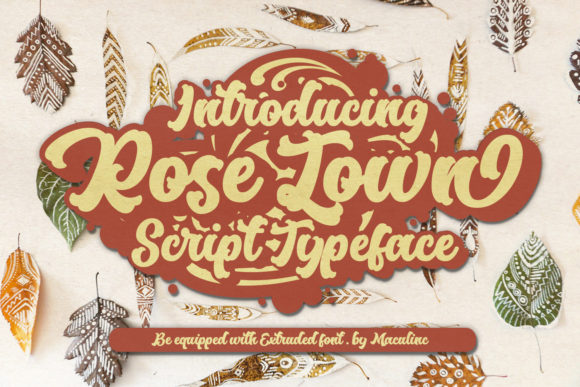
**Introducing Rose Town Font: The Epitome of Bold and Nostalgic Elegance**
Embrace the allure of Rose Town Font, a captivating script typeface that exudes timeless charm and unwavering confidence. This meticulously crafted font family invites you to elevate your designs with its bold strokes and retro aesthetic. Rose Town's thick lettered form commands attention, while its handwritten essence adds a touch of warmth and authenticity.
Indulge in the captivating allure of Rose Town, a font that embodies strength, confidence, and undeniable visual appeal. Its dynamic character adds a touch of nostalgia, evoking memories of handwritten letters and vintage signage. Let Rose Town ignite your creativity and bring a touch of timeless elegance to all your design endeavors.
**Why Choose Rose Town Font?**
* **Unleash Your Inner Confidence:** Rose Town's bold and assertive strokes radiate confidence and determination, empowering your designs to make a lasting impression.
* **Embrace Nostalgic Charm:** Step back in time with Rose Town's retro flair. Its handwritten style evokes a sense of familiarity and comfort, connecting your designs with the past.
* **Create Memorable Logos:** Rose Town's striking presence makes it the ideal choice for crafting unforgettable business logos. Its thick letters and bold character ensure maximum impact, ensuring your brand stands out from the crowd.
* **Add Character to Your Designs:** Infuse your designs with personality and depth using Rose Town. Its unique lettering adds a touch of individuality, making your creations truly one-of-a-kind.
* **Versatile and Adaptable:** Rose Town's versatility knows no bounds. Whether you're designing posters, social media graphics, or eye-catching headlines, this font seamlessly adapts to suit your needs.
**Experience the Rose Town Font Difference**
Immerse yourself in the world of Rose Town Font and discover a world of design possibilities. Its bold strokes, retro charm, and unwavering confidence will empower you to create designs that resonate with your audience.